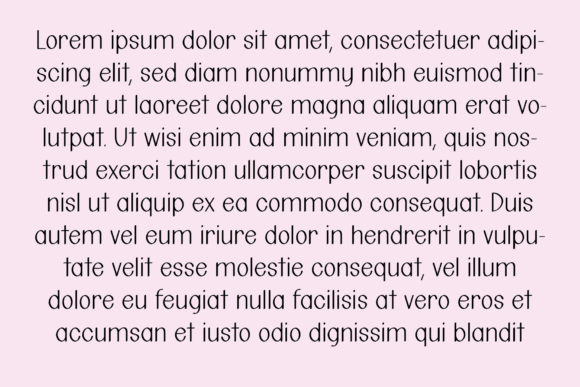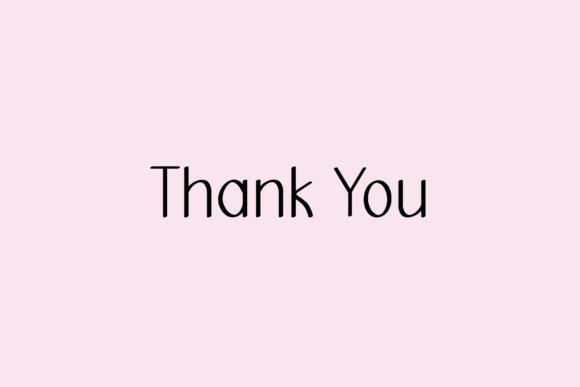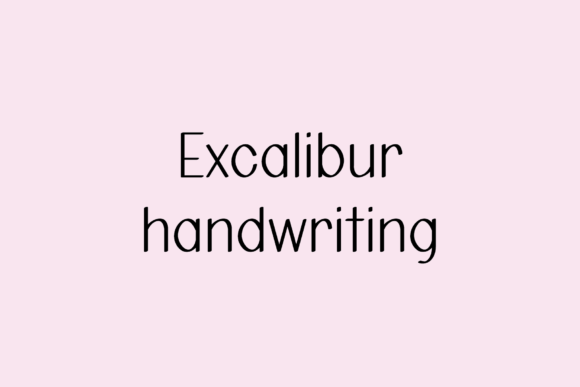
Introducing Excalibur Font: The Ultimate Handwritten Font for Creative Designs
Are you on the hunt for a font that adds a touch of whimsy and friendliness to your designs? Look no further than Excalibur Font! This delightful handwritten font is perfect for designers and crafters who want to infuse their projects with a dash of personality. In this article, we’ll dive into the world of Excalibur Font, exploring its features, uses, and benefits.
What is Excalibur Font?
Excalibur Font is a fun and friendly handwritten font that’s sure to brighten up any design. With its whimsical and slightly quirky charm, this font is perfect for adding a personal touch to your projects. Whether you’re working on a logo, wedding invitation, quote, advertisement, or magazine, Excalibur Font is the perfect choice.
Key Features of Excalibur Font
• Handwritten style: Excalibur Font boasts a beautiful, handwritten style that’s perfect for creating unique and eye-catching designs.
• Whimsical and quirky: This font’s whimsical and quirky charm adds a touch of personality to any design.
• Versatile: Excalibur Font is perfect for a wide range of projects, including logos, wedding invitations, quotes, advertisements, print, magazines, and more!
• Easy to read: Despite its playful nature, Excalibur Font is easy to read, making it perfect for body text and headlines.
Uses of Excalibur Font
Excalibur Font is an incredibly versatile font that can be used in a variety of design projects. Here are some ideas to get you started:
• Logos: Create a unique and memorable logo for your business or brand with Excalibur Font.
• Wedding invitations: Add a touch of whimsy and romance to your wedding invitations with Excalibur Font.
• Quotes and posters: Make your quotes and posters stand out with Excalibur Font’s playful and eye-catching style.
• Advertisements: Use Excalibur Font to create eye-catching advertisements that grab attention and leave a lasting impression.
• Magazines and print: Add a touch of personality to your magazine or print project with Excalibur Font.
Benefits of Using Excalibur Font
So, why choose Excalibur Font for your design projects? Here are just a few benefits:
• Unique and eye-catching: Excalibur Font adds a touch of personality to any design, making it stand out from the crowd.
• Easy to use: This font is incredibly easy to use, even for designers who are new to handwriting fonts.
• Versatile: Excalibur Font can be used in a wide range of design projects, from logos to magazines.
• High-quality: This font is designed to high-quality standards, ensuring that it looks great in any design.
Tips for Using Excalibur Font
Here are a few tips for getting the most out of Excalibur Font:
• Experiment with sizes: Try out different font sizes to see how Excalibur Font looks in different contexts.
• Play with colors: Excalibur Font looks great in a variety of colors, so don’t be afraid to experiment.
• Mix and match: Try pairing Excalibur Font with other fonts to create a unique and eye-catching design.
In conclusion, Excalibur Font is a fun and friendly handwritten font that’s perfect for designers and crafters who want to add a touch of personality to their projects. With its whimsical and quirky charm, this font is sure to brighten up any design. Whether you’re working on a logo, wedding invitation, quote, advertisement, or magazine, Excalibur Font is the perfect choice. So why wait? Download Excalibur Font today and start creating unique and eye-catching designs!